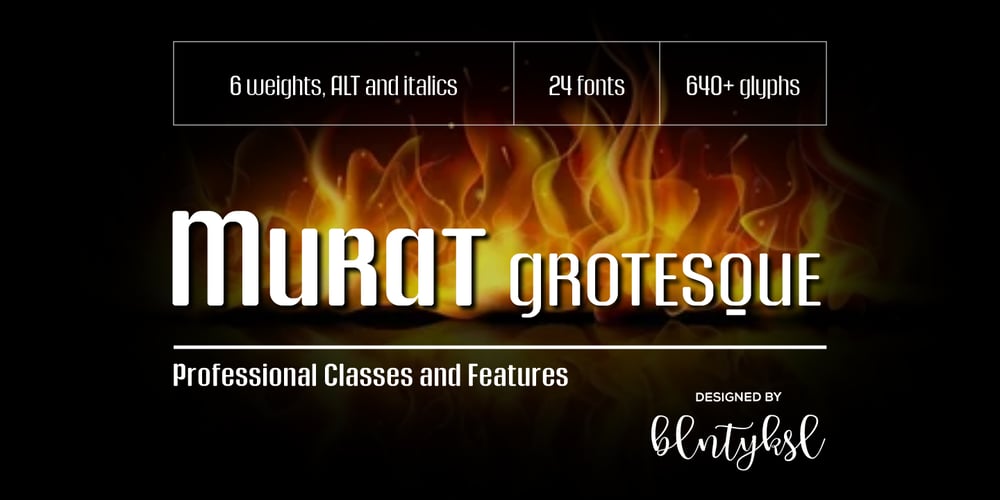
Murat Grotesque
Murat Grotesque font
Murat Grotesque Font Family was designed by Bülent Yüksel and published by Bülent Yüksel. Murat Grotesque contains 24 styles and family package options. “Murat Grotesque” is a sans serif font inspired by the “Impact” character. The corners were softened and many glyph forms were completely changed. It was transformed into a modern line, which is the result of the harmony of width and height, in particular to promote legibility in lowercase letters.You can enjoy using it…